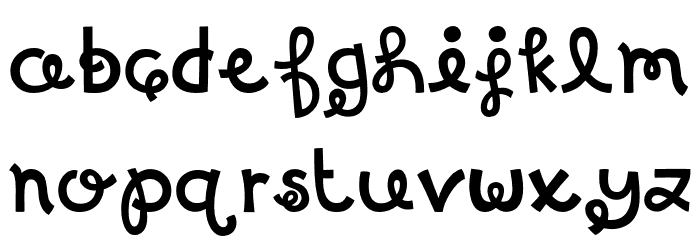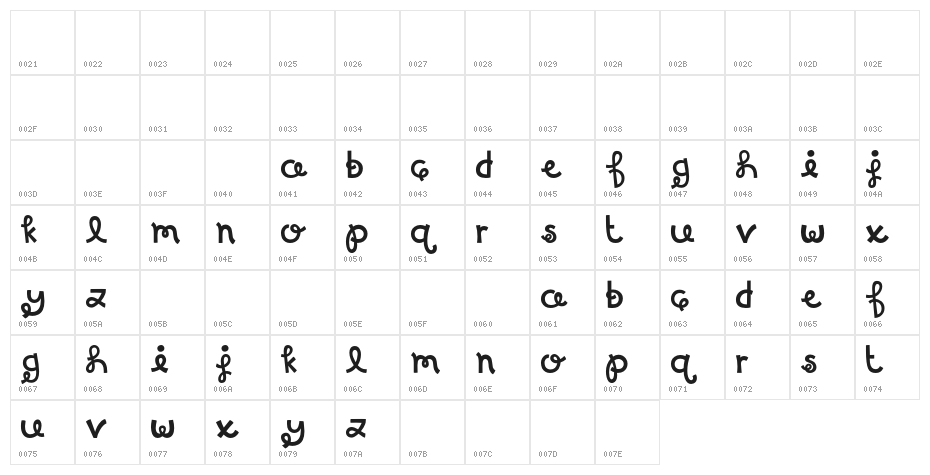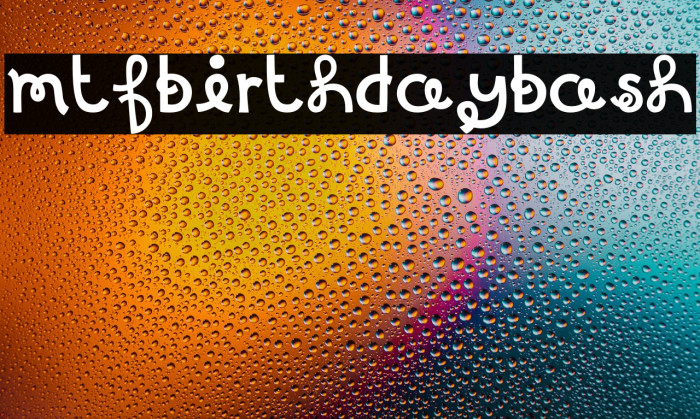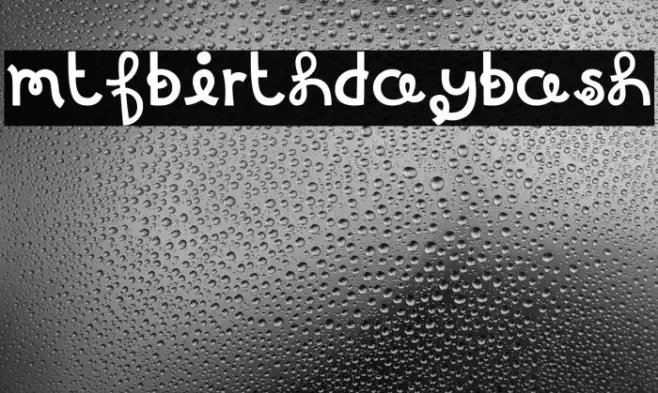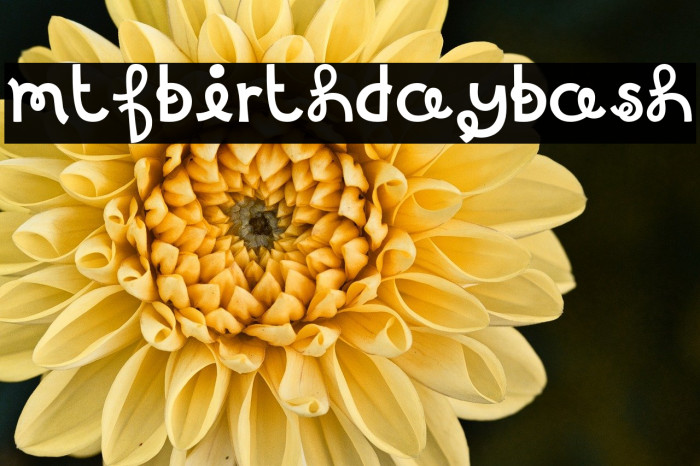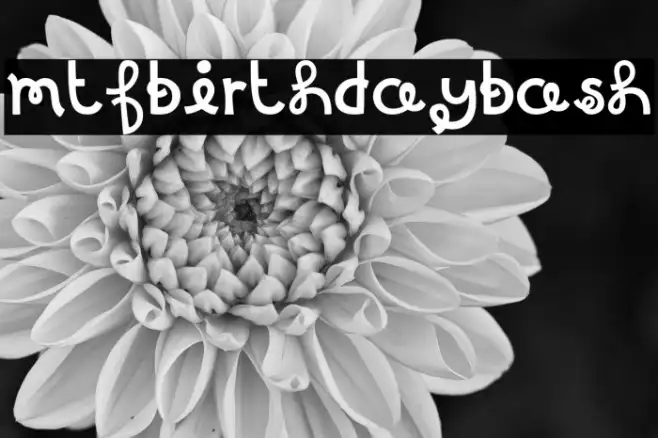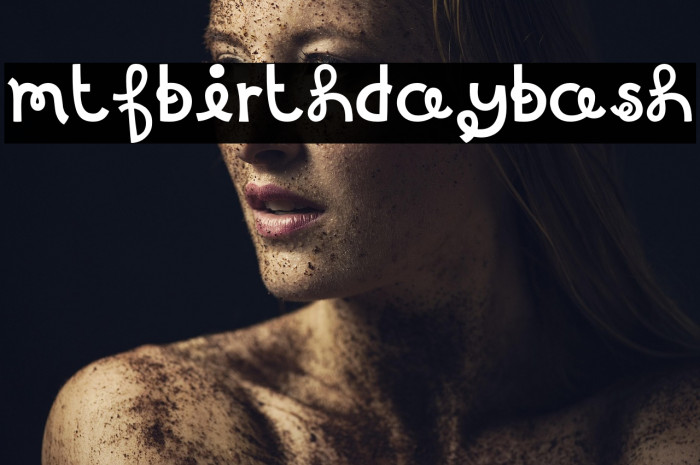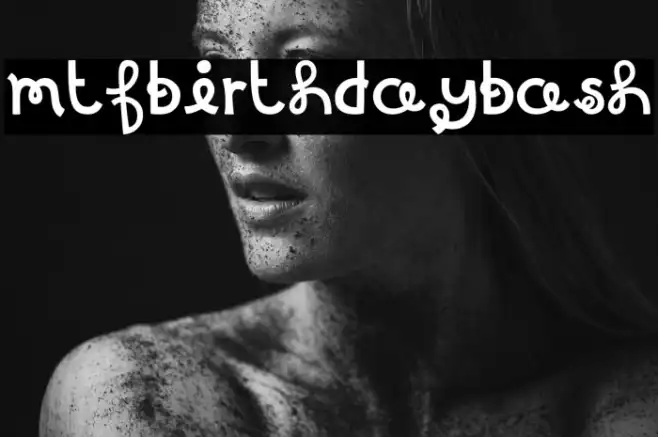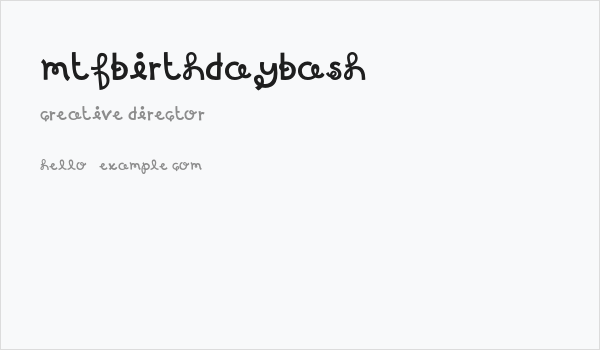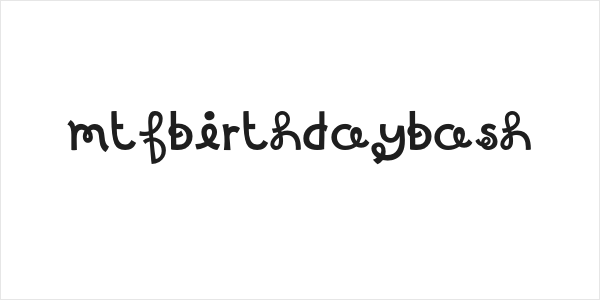
MTFBirthdayBash Font
This playful and whimsical font features a unique blend of rounded and curly elements, giving it a lively and cheerful appearance. The characters are crafted with a consistent stroke width, providing a harmonious and balanced look. The font's distinctive loops and swirls add a touch of creativity and fun, making it ideal for projects that require a lighthearted and informal tone. Its legibility is maintained despite the decorative elements, ensuring readability in various sizes.
A playful and whimsical font with rounded, curly elements and consistent stroke width.
- Proposed Projects: Ideal for children's books, party invitations, greeting cards, and playful branding.
- Overall Style: Playful
- Use Case: Headlines, Logos, Invitations